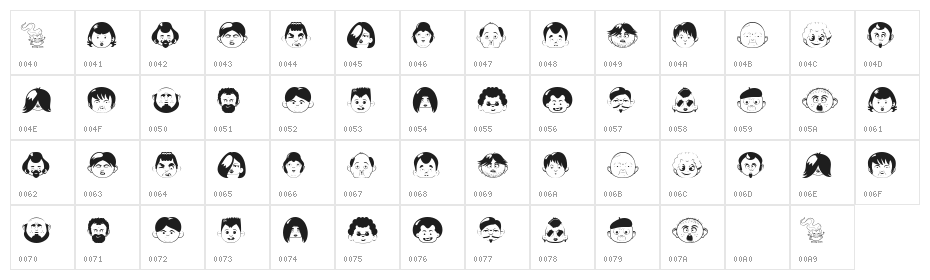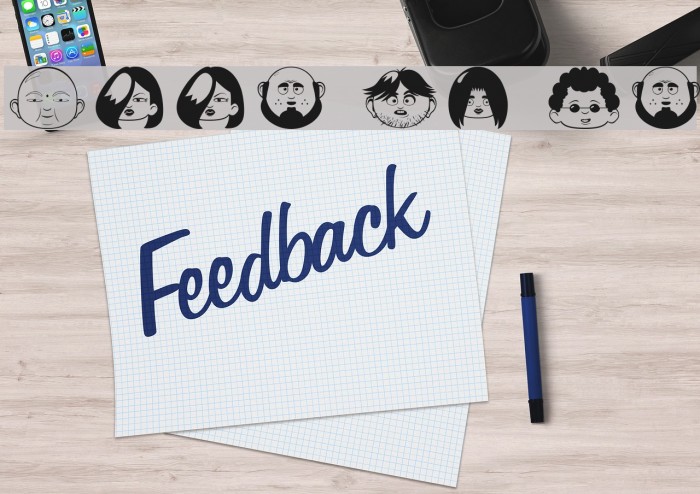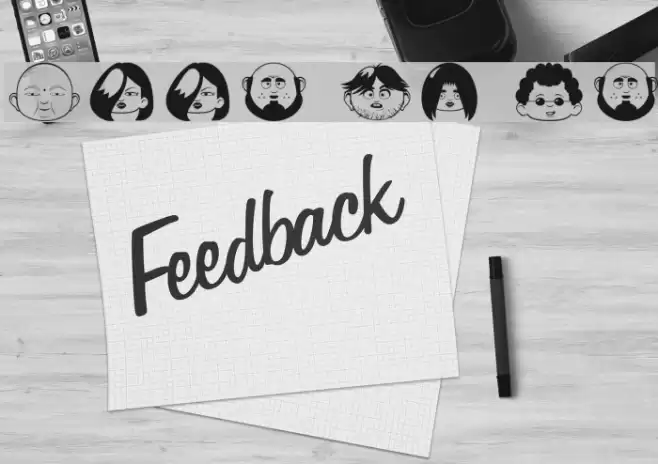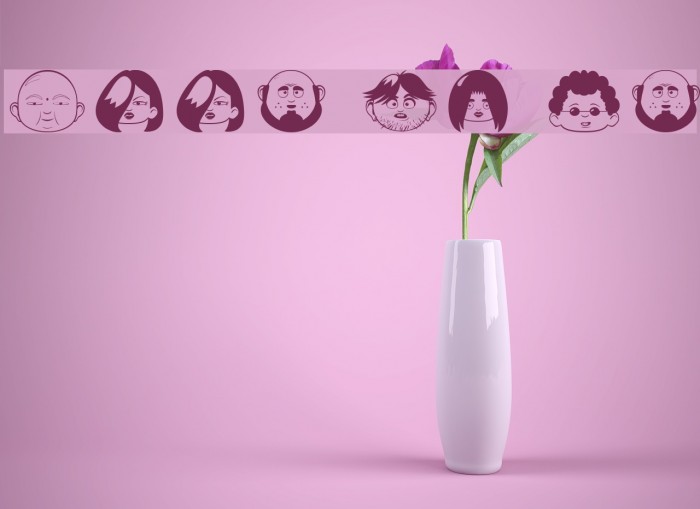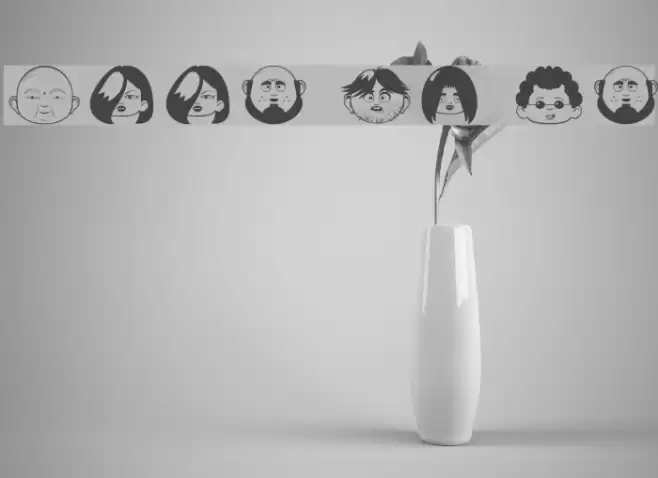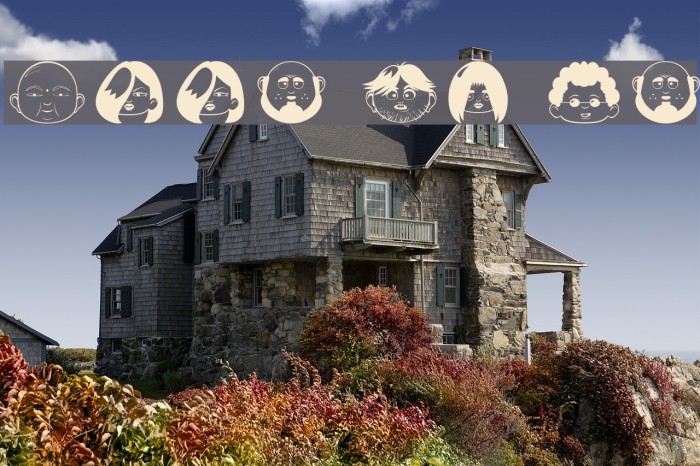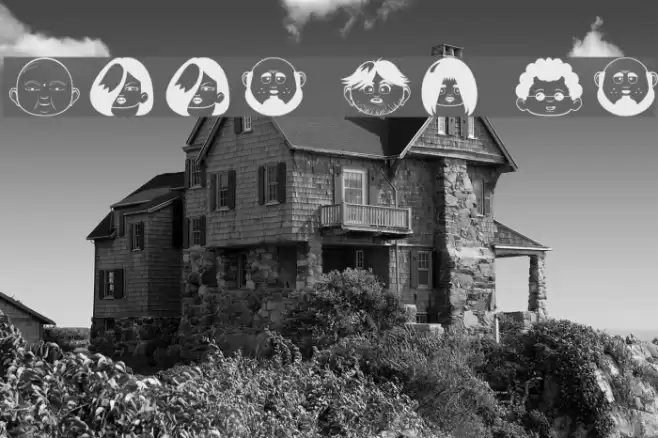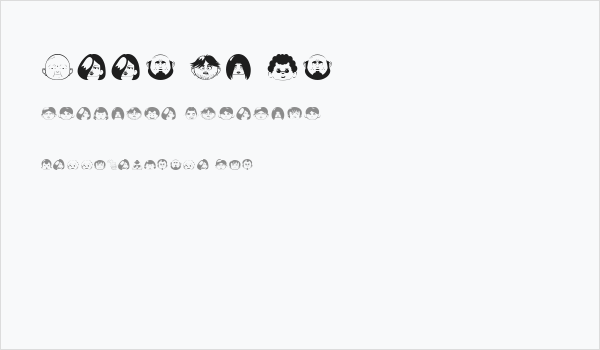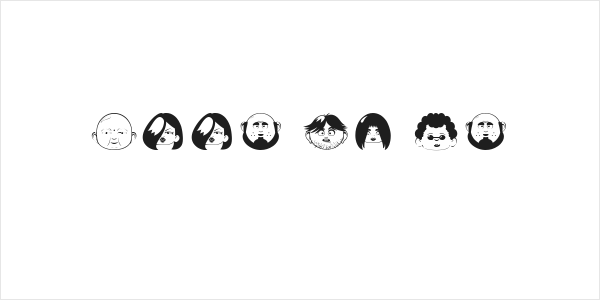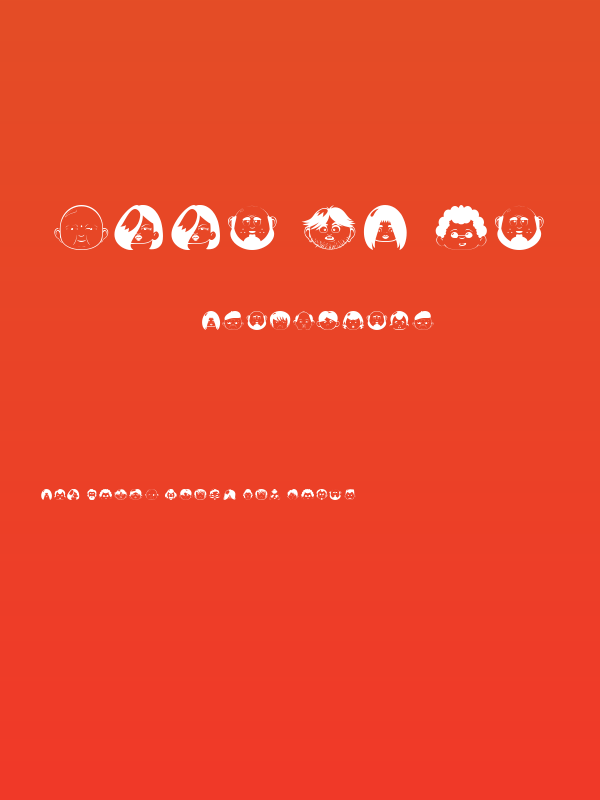
Keep It Up Font
Keep It Up Description
A decorative display font where each character is represented by a unique cartoon face, featuring a variety of hairstyles, facial expressions, and accessories. The style is playful and highly illustrative, with bold outlines and simple black-and-white shading.
| Overall Style | Playful, Decorative, Cartoonish |
| Use Case | Logos, Headlines, Posters, ChildrenΓ’β¬β’s content |
| Proposed Projects | ChildrenΓ’β¬β’s books, party invitations, comic strips, playful branding, educational materials. |